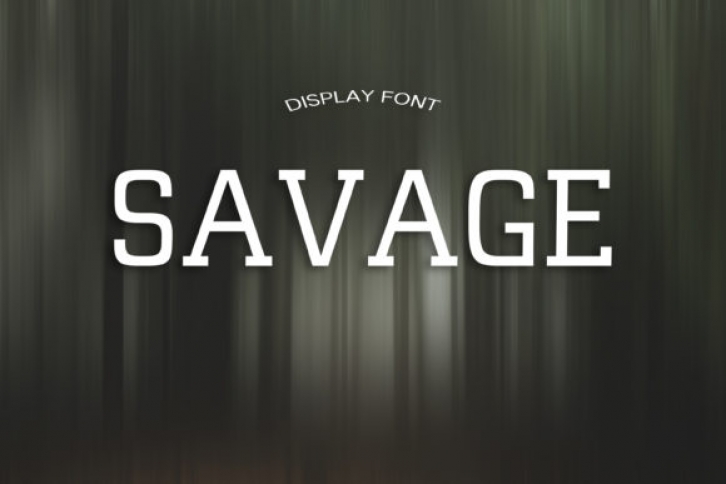
Savage is a unique and timeless display font featuring elegant serifs. Because of its versatile look, it will look great on both titles and body text.